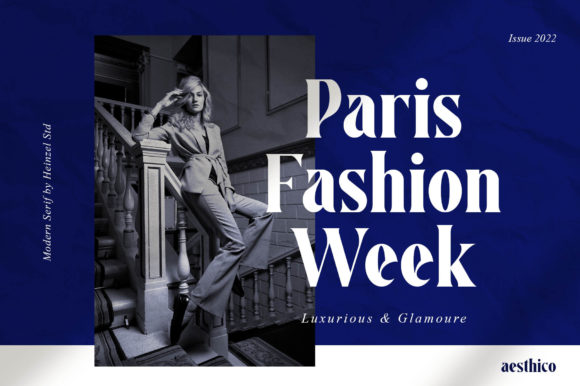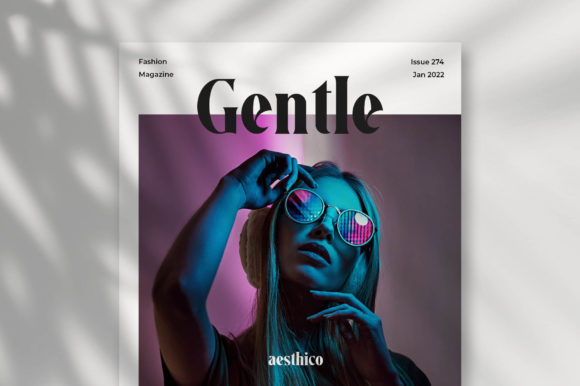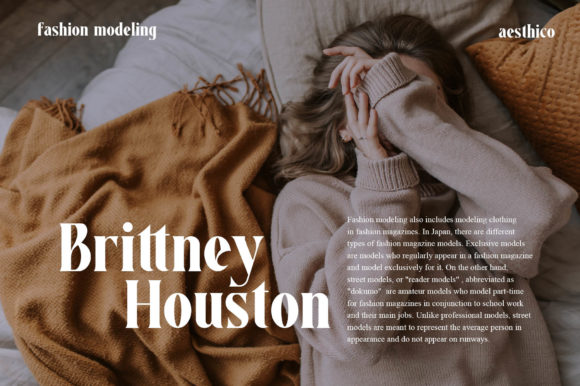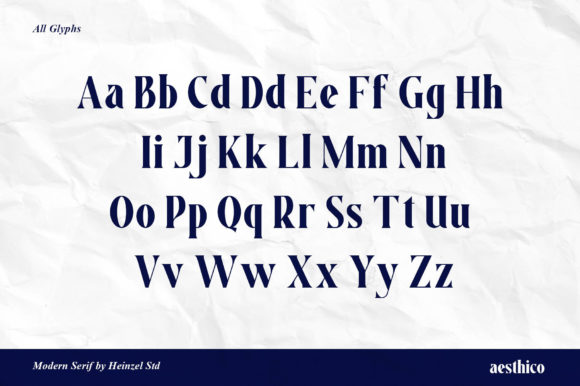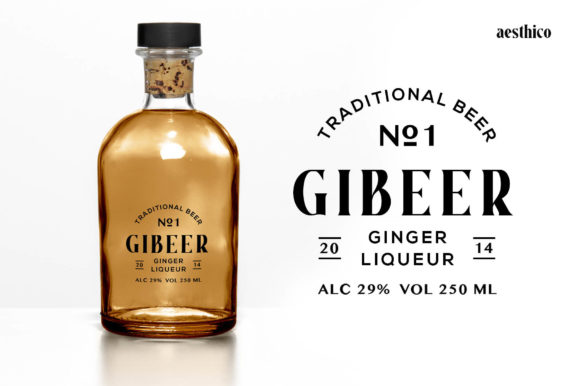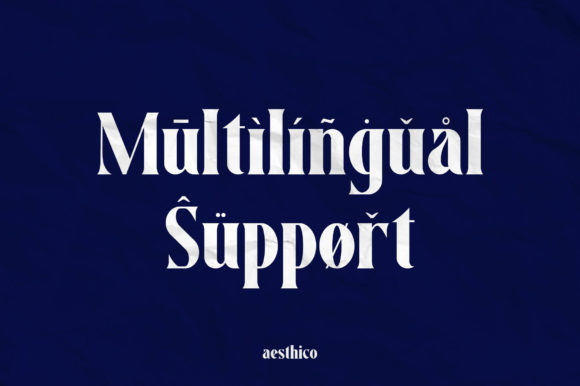
Introduction to Aesthico Font
Aesthico is modern, elegant, fashion serif font inspired by a popular magazine logo.
It is great for headlines, logos, covers, posters and various other creative designs .
Key Features of Aesthico Font